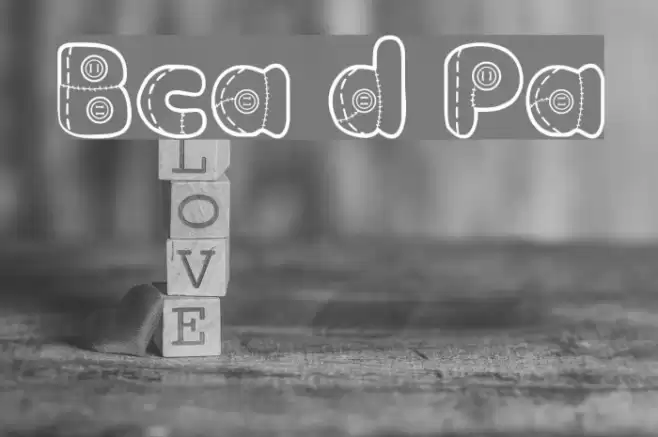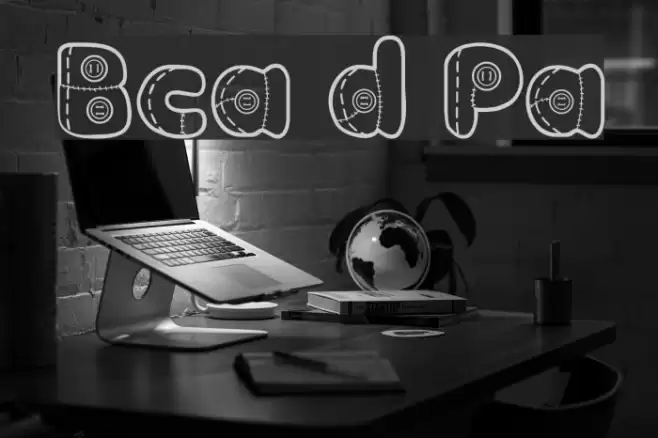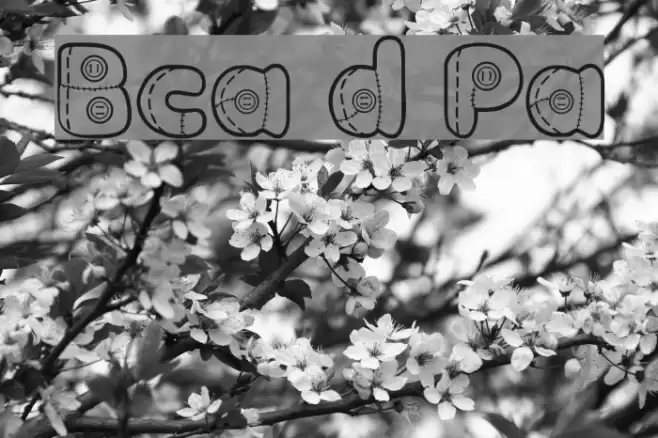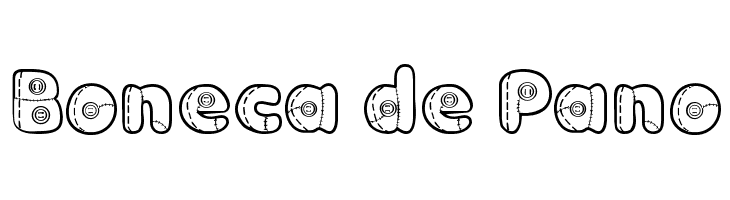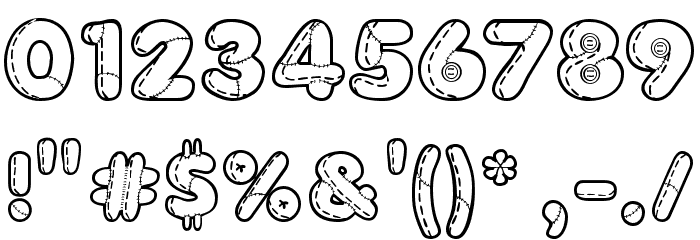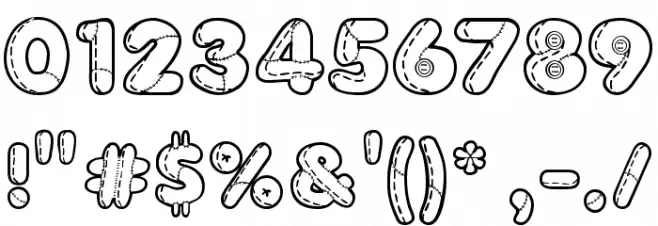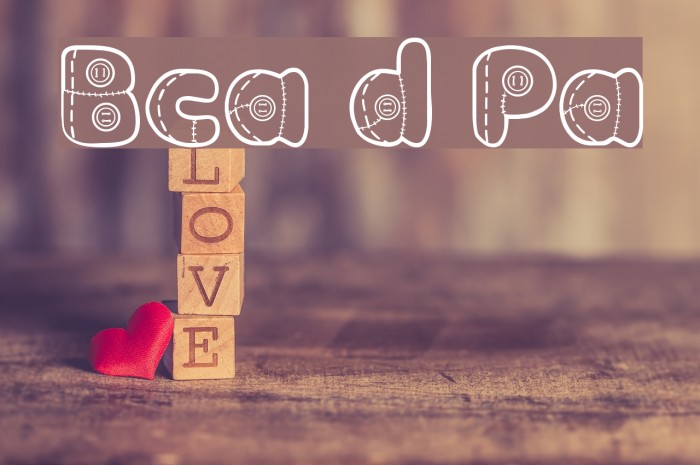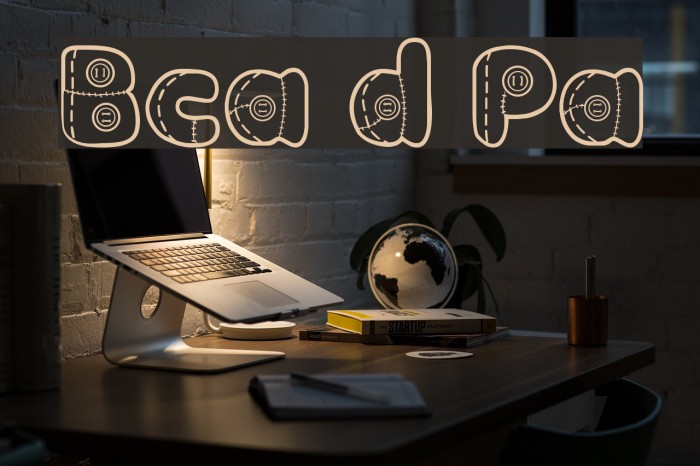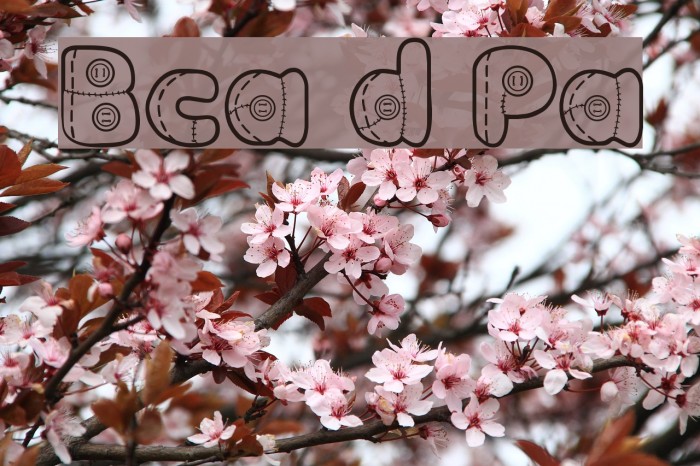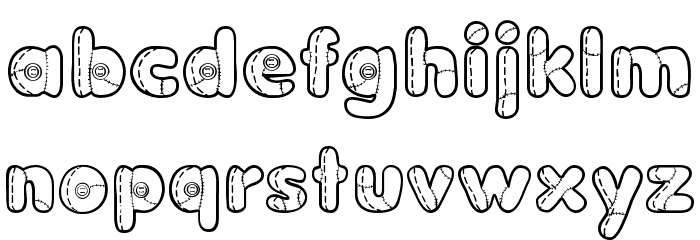
Boneca de Pano Font
Boneca de Pano Description
This playful and whimsical font features a hand-drawn, stitched appearance reminiscent of fabric or patchwork. Each character is outlined with a bold, black line, and the interior is filled with patterns that mimic the texture of cloth, complete with stitch-like details. The font exudes a sense of fun and creativity, making it ideal for projects that require a touch of handmade charm. Its unique style captures the essence of craft and DIY aesthetics, making it stand out in any design.
A playful, hand-drawn font with a stitched, fabric-like appearance from Decorative fonts.
- Proposed Projects: Ideal for children's book covers, craft project labels, playful branding, and DIY-themed invitations.